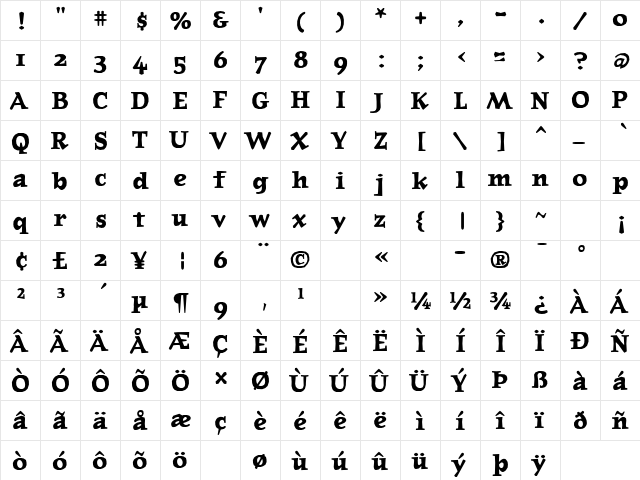
JournalBoldOldstyle Bold
Design Context for JournalBoldOldstyle Typeface
JournalBoldOldstyle brings classic typographic sensibility to the table — its serifs and measured letterforms reflect centuries of print heritage. The heavy weight commands attention and anchors typographic hierarchies.